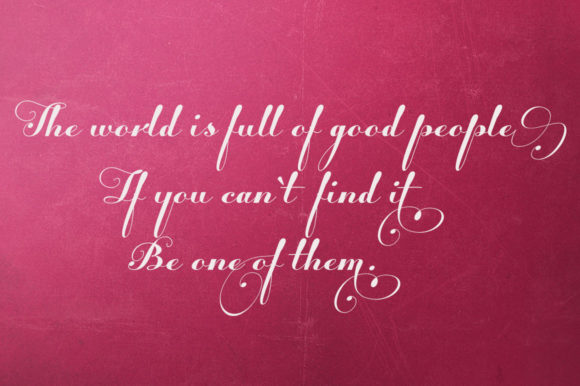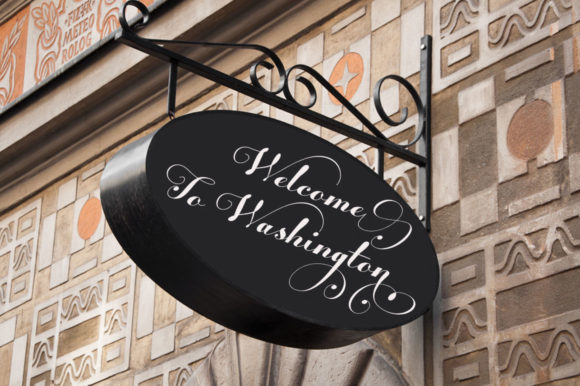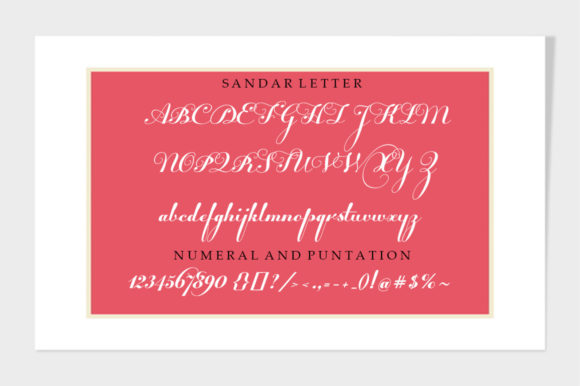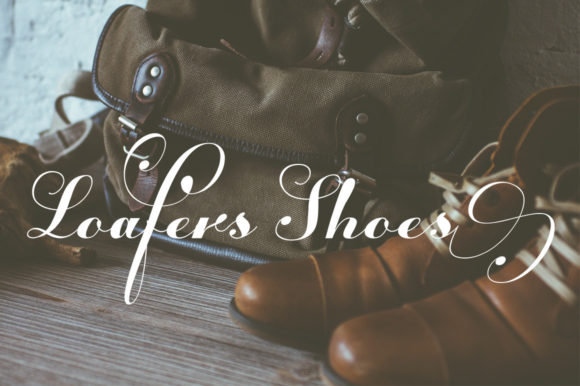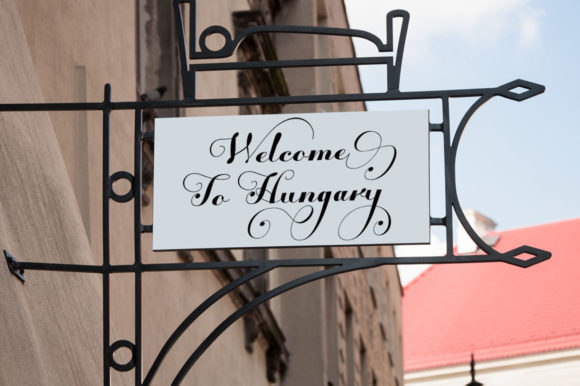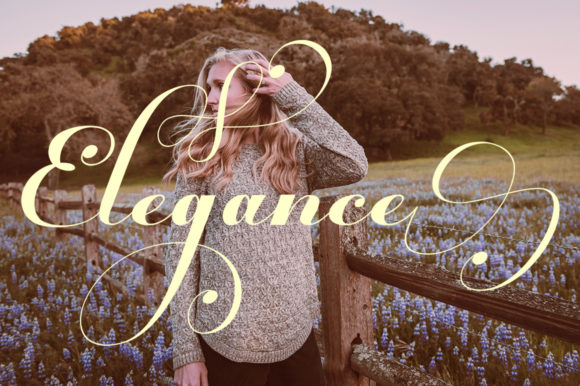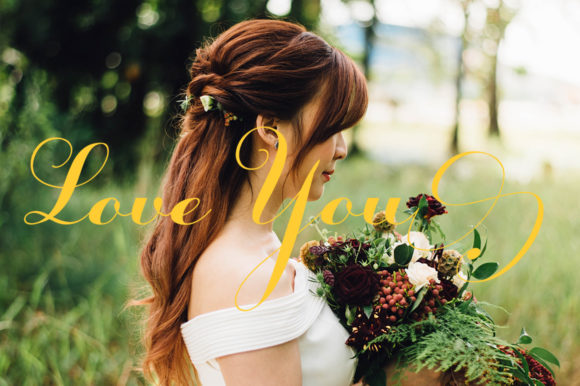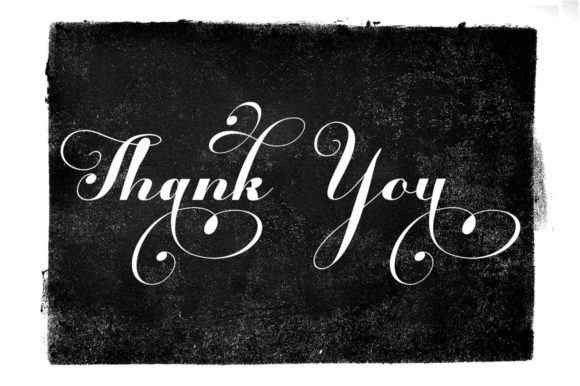
The Calligraphy Font
About The Calligraphy Font
The Calligraphy is an elegant script font with a contemporary atmosphere and impeccable form, inspired by timeless classic calligraphy. Not too thin and not too thick, balanced and varied, this font was designed to enhance the beauty of your projects.